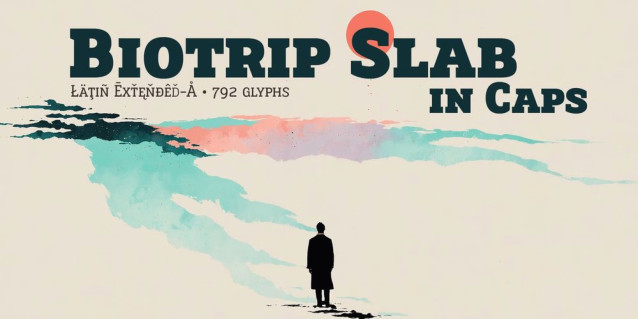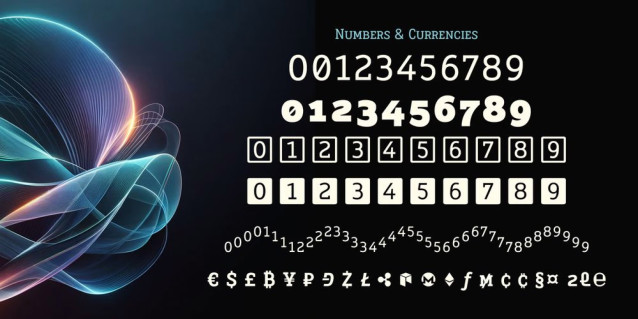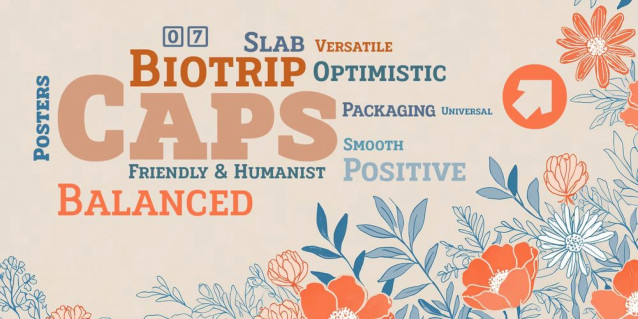
Biotrip Serif Caps Font
Biotrip Serif Caps, the small caps and uppercase version of Biotrip Serif, is a natural extension within the Biotrip Universe. This is a journey that began with Sans and found its weight and character in Serif.
Biotrip Serif Caps is a multipurpose typeface designed with meticulous care to offer legibility, balance, and character. The family includes seven weights—Light, Regular, Medium, Semi Bold, Bold, Extra Bold, and Black—that allow for the construction of solid hierarchies without losing visual coherence. From the understated elegance of Light to the resounding and undeniable presence of Black, each weight is a nuance, an inflection of that same majestic voice.
Each weight maintains the geometric tension of Biotrip Serif—that unique combination of slab serifs at the base and lapidary serifs at the top. The result is a typeface that has weight, that has a physical presence, but that never loses its organic warmth.
Editorial design, brochures, posters, signage, logos, product packaging, wayfinding, corporate image. Biotrip Serif Caps is designed to move seamlessly between all these worlds.